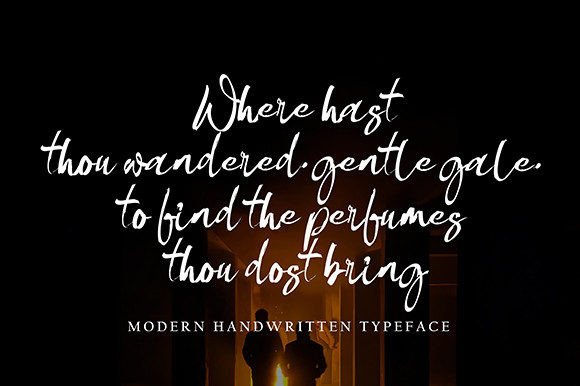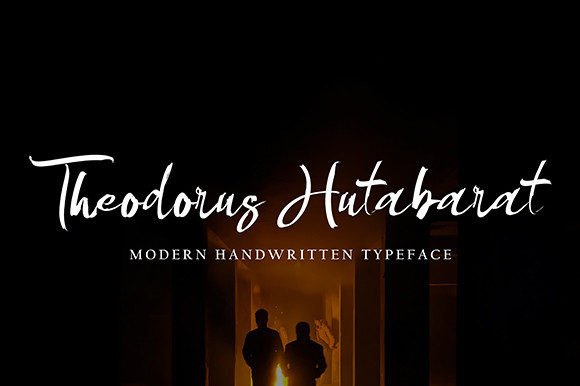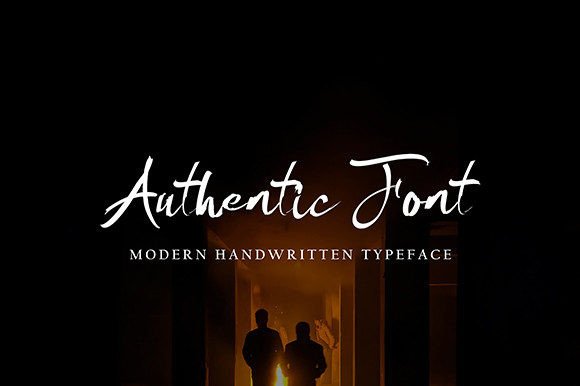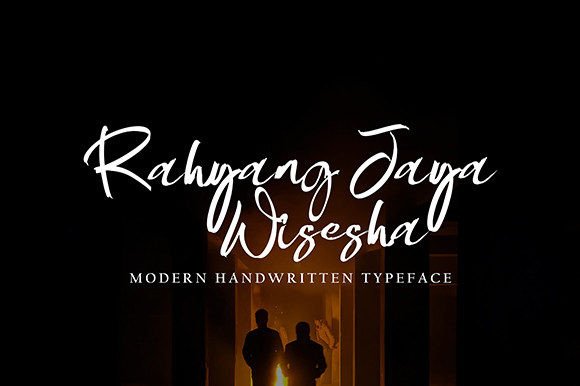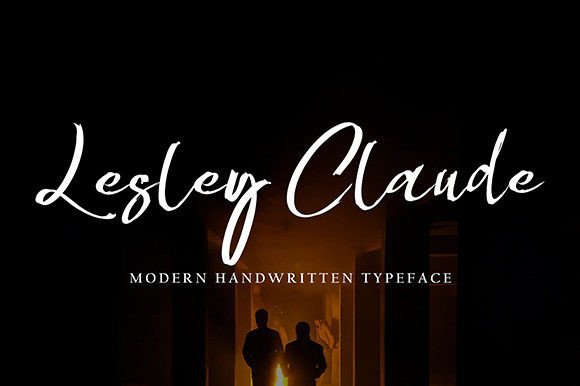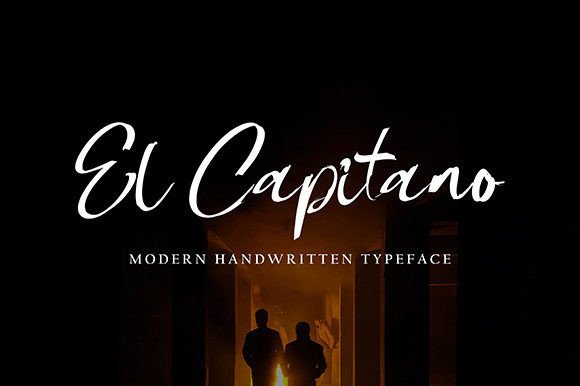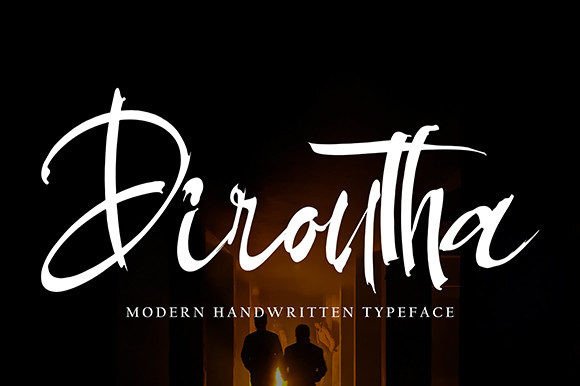
Diroutha Font: Elevate Your Designs with a Modern Handwritten Touch
In the world of typography, fonts play a crucial role in conveying messages, expressing emotions, and creating visual identities. For designers and crafters, finding the perfect font can be a daunting task, especially when looking for something that adds a personal touch to a project. This is where Diroutha Font comes into play – a modern handwritten font that has been making waves in the design community. In this article, we’ll dive into the world of Diroutha Font, exploring its features, uses, and benefits.
What is Diroutha Font?
Diroutha is a modern handwritten font designed to bring a touch of elegance and sophistication to any design project. This lovely typeface is characterized by its fluid strokes, charming letterforms, and a distinct sense of personality. Diroutha Font is perfect for designers and crafters looking to add a human touch to their work, making it ideal for a wide range of applications.
Key Features of Diroutha Font
So, what makes Diroutha Font stand out from the rest? Here are some of its key features:
- Modern Handwritten Style: Diroutha Font boasts a contemporary handwritten style that is both fresh and timeless.
- Highly Legible: The font’s clear and readable design ensures that your message is conveyed effectively, making it perfect for body text and headlines.
- Versatile: Diroutha Font is suitable for a wide range of design projects, from quotes and logos to blog headers, posters, and more.
- Unique Character Set: The font comes with a unique character set, including uppercase and lowercase letters, numbers, and punctuation marks.
Uses of Diroutha Font
Diroutha Font is an incredibly versatile typeface that can be used in various design projects. Here are some of the most popular uses of this beautiful font:
- Quotes and Inspirational Messages: Add a personal touch to your quotes and inspirational messages with Diroutha Font’s elegant and cursive style.
- Logos and Branding: Create a unique and memorable logo for your brand using Diroutha Font, perfect for businesses, products, and services.
- Blog Headers and Titles: Elevate your blog’s visual identity with Diroutha Font, making your headers and titles stand out from the crowd.
- Posters and Flyers: Use Diroutha Font to create eye-catching posters and flyers that grab attention and convey your message effectively.
- Invitations and Stationery: Add a touch of elegance to your invitations, letters, and stationery with Diroutha Font’s beautiful handwritten style.
Benefits of Using Diroutha Font
So, why should you choose Diroutha Font for your design projects? Here are some benefits that make it an excellent choice:
- Time-Saving: With Diroutha Font, you can save time and effort in creating custom handwritten text, allowing you to focus on other aspects of your design.
- Consistency: The font ensures consistency in your design, providing a cohesive look and feel across all your projects.
- Professional Look: Diroutha Font gives your designs a professional and polished look, perfect for businesses, brands, and individuals looking to make a statement.
- Easy to Read: The font’s high legibility ensures that your message is conveyed effectively, making it perfect for body text and headlines.
In conclusion, Diroutha Font is a modern handwritten font that offers a unique and elegant solution for designers and crafters. With its versatile style, high legibility, and wide range of uses, this font is perfect for adding a personal touch to any design project. Whether you’re looking to create a logo, blog header, poster, or invitation, Diroutha Font is an excellent choice. So, why not give it a try and elevate your designs with a modern handwritten touch?